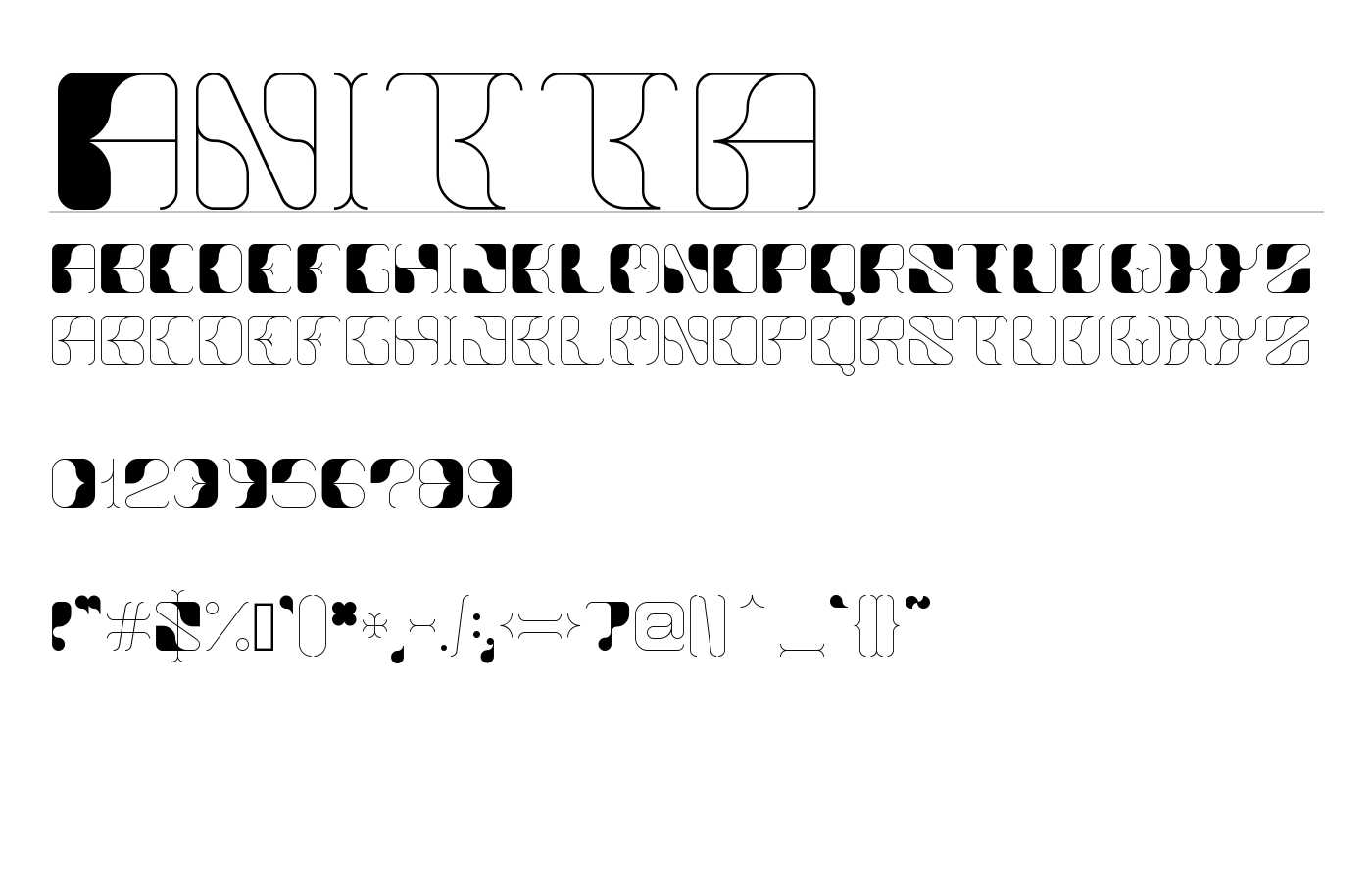
Anitta is a decorative serif font with a modern twist, featuring bold contrasts between thick and thin strokes and distinctive bracketed serifs that create an elegant, artistic look. Its unique, almost sculptural letterforms and playful curves make it perfect for eye-catching headlines, branding, and fashion-related designs where a stylish, contemporary feel is desired. This font adds a creative and sophisticated touch to projects seeking a blend of luxury and originality.
Anitta Font